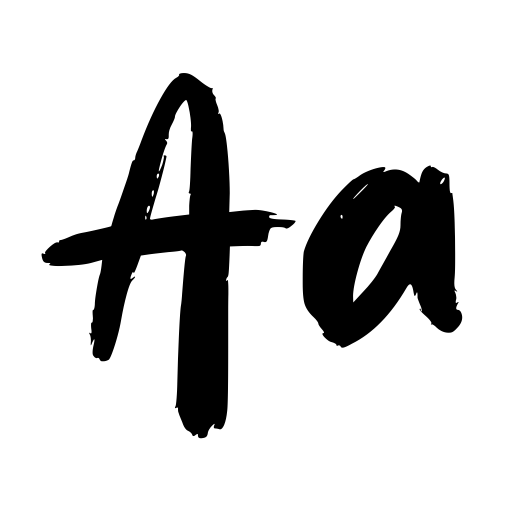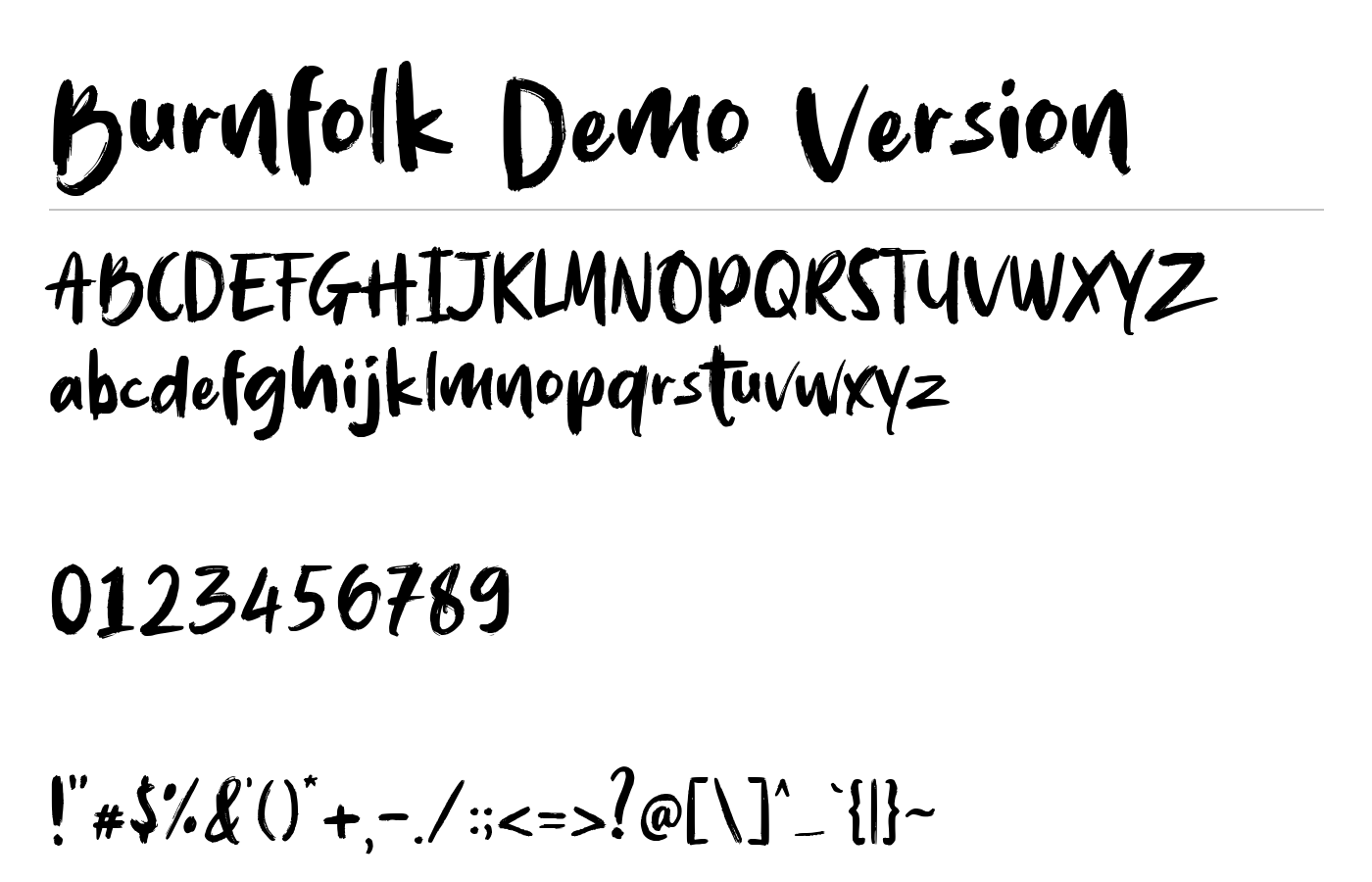
Burnfolk Demo Version is a bold, casual brush script font with a hand-drawn, textured feel that adds personality and warmth. Its lively strokes and slightly irregular shapes make it perfect for creative, informal designs like logos, posters, and packaging where a friendly and energetic vibe is desired. This font works best for headlines and branding that aim to stand out with a unique, artistic touch.
Burnfolk Demo Version Font
About Burnfolk Demo Version Font